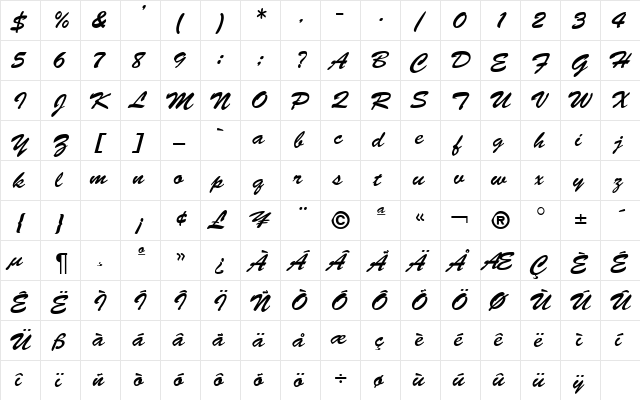
BarcBrushDB Bold
Design Context for BarcBrushDB Typeface
BarcBrushDB brings a calligraphic fluidity to the page — its connecting strokes and expressive curves give it an unmistakably human quality. The heavy weight commands attention and anchors typographic hierarchies.
Font Pairing: Combine BarcBrushDB with a simple geometric sans for maximum contrast — the tension between flowing curves and clean structure is a classic typographic pairing.
Pro Tip: Pair BarcBrushDB with a clean sans-serif for supporting text. The contrast between fluid script and geometric structure creates an elegant typographic hierarchy.